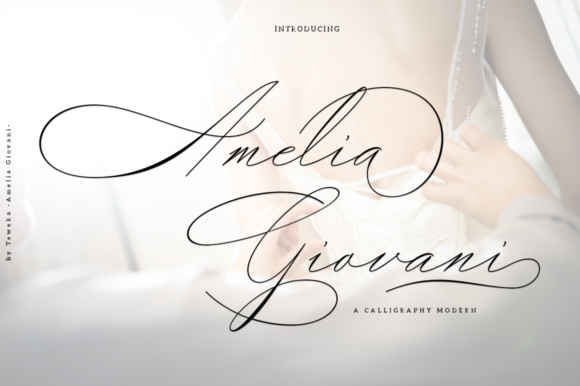
Step into the world of elegance and sophistication with the Amelia Giovani Font, a modern calligraphy font that captivates with its classic charm. Experience the allure of timeless beauty as this font weaves its magic into your designs, transforming them into masterpieces.
Crafted with meticulous attention to detail, the Amelia Giovani Font embodies the essence of grace and refinement. Its flowing lines, elegant curves, and subtle flourishes dance together in perfect harmony, creating a visual feast for the eyes.
Whether you're a seasoned designer or just starting your creative journey, the Amelia Giovani Font is your perfect companion. Its versatile nature makes it ideal for a wide range of projects, from branding and logos to wedding invitations and greeting cards.
With the Amelia Giovani Font, you can effortlessly elevate your designs to new heights of sophistication. Its timeless appeal ensures that your creations will stand the test of time, leaving a lasting impression on all who behold them.
Unleash your creativity and let the Amelia Giovani Font guide you towards design excellence. Its exquisite beauty and versatility will transform your projects into works of art, captivating and enchanting your audience. Embrace the allure of Amelia Giovani and embark on a creative journey like never before.